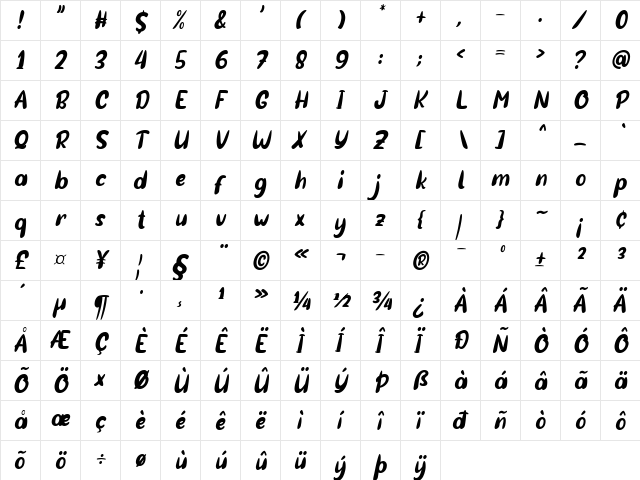
Sotis Italic
| Foundry | 7NTypes |
| Designer | Rifki Syahrul Febrianoka: Situjuh Nazara |
Design Context for Sotis Typeface
Sotis is a composed and adaptable typeface that performs quietly and consistently across a wide range of design contexts. The slanted form adds forward momentum and visual energy.
Pro Tip: Try Sotis for annotation and caption copy alongside an upright companion — the contrast in angle creates a dynamic but ordered typographic system.